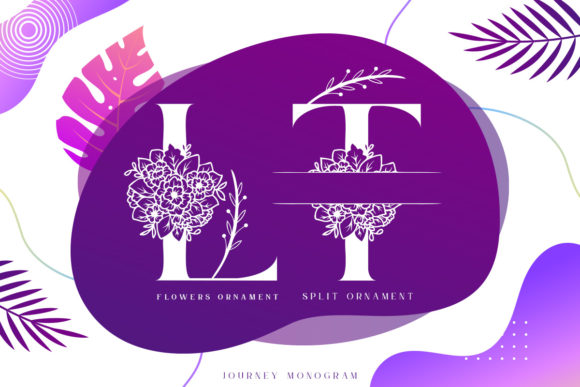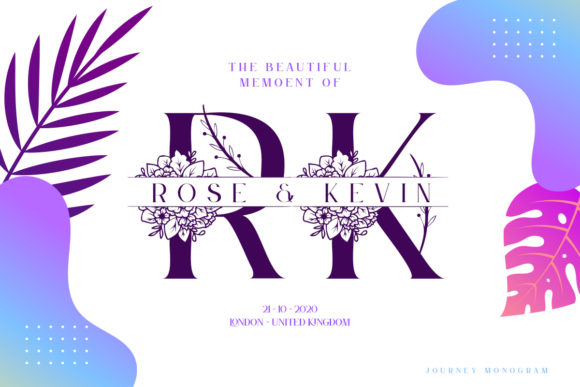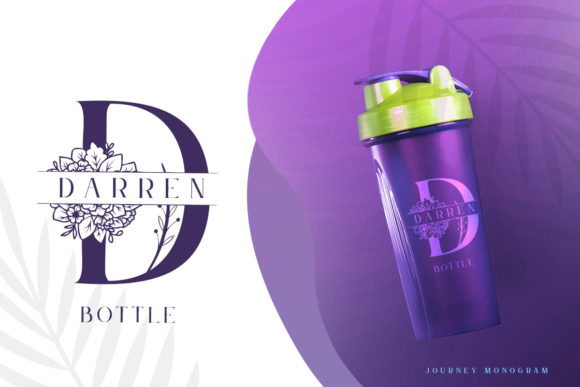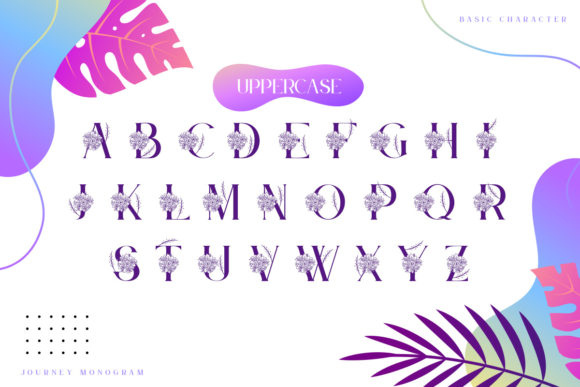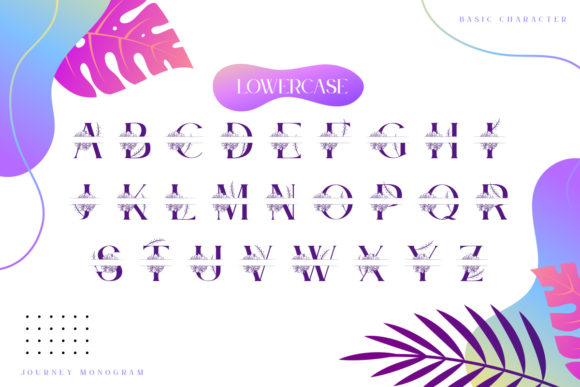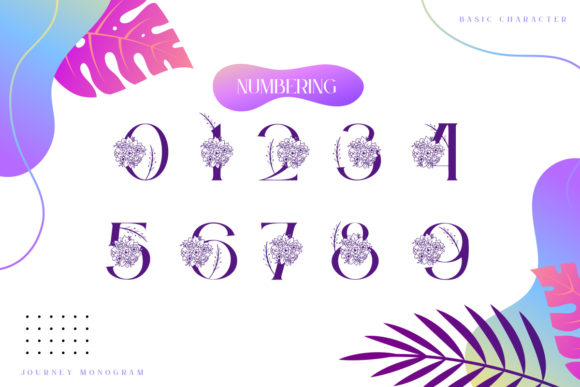
Introduction to Journey Monogram Font
Journey Monogram is an incredibly unique display font.
Key Features of Journey Monogram Font
Why Choose Journey Monogram Font?